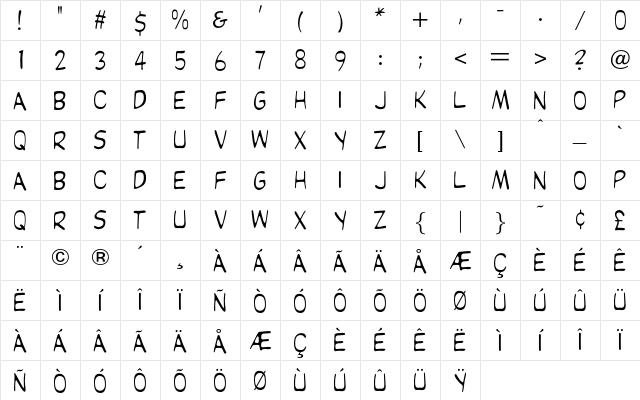
OPTIKartoon Regular Free Font
OPTIKartoon Regular
OPTIKartoon Family
Complete OPTIKartoon Regular glyph index. Displaying only characters natively supported by OPTIKartoon Regular font.
Design Context for OPTIKartoon
OPTIKartoon is a composed and adaptable typeface that performs quietly and consistently across a wide range of design contexts.